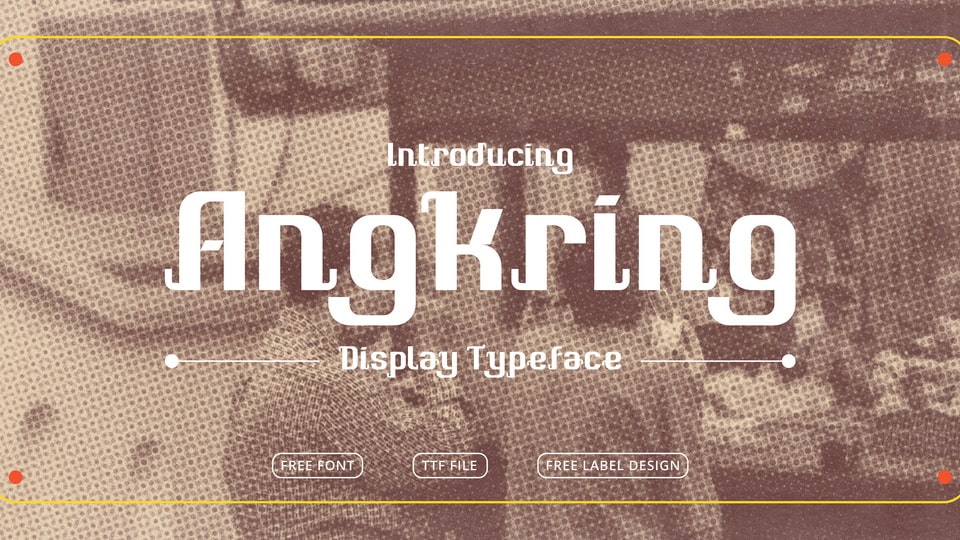
Download Angkring font, an exploration of the sans serif display typeface, inspired by Angkringan, one of the traditional cultures and foods in Indonesia. The vintage impression on Angkring typeface but still minimalist, is suitable to be applied to any design, especially for labels design.